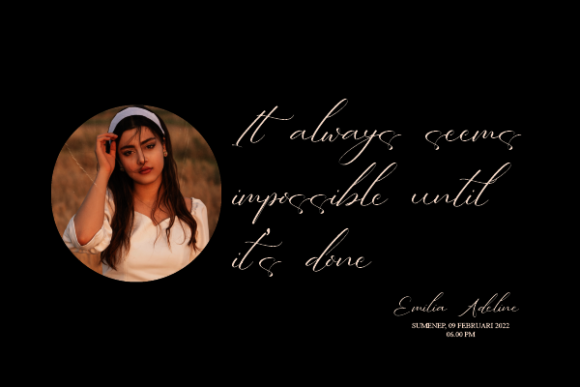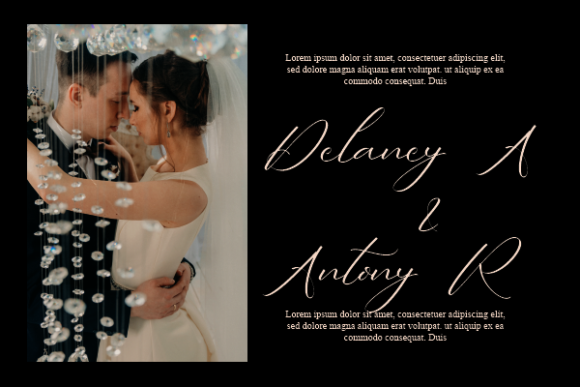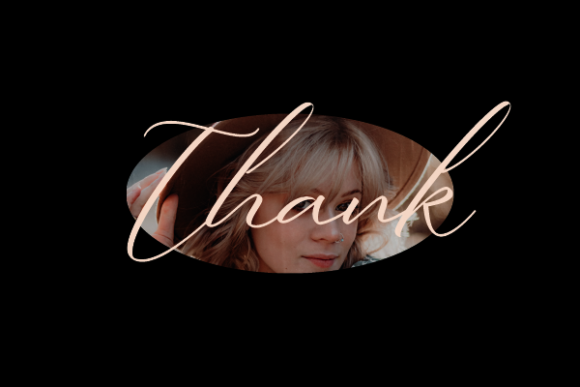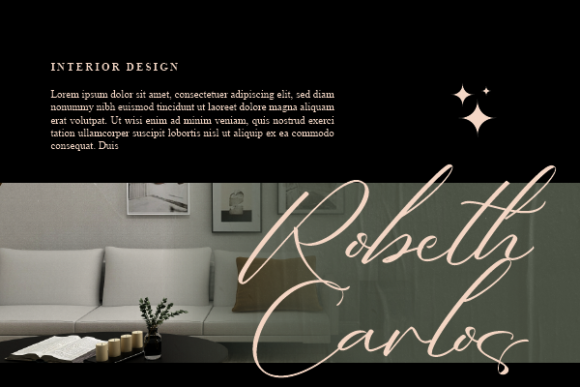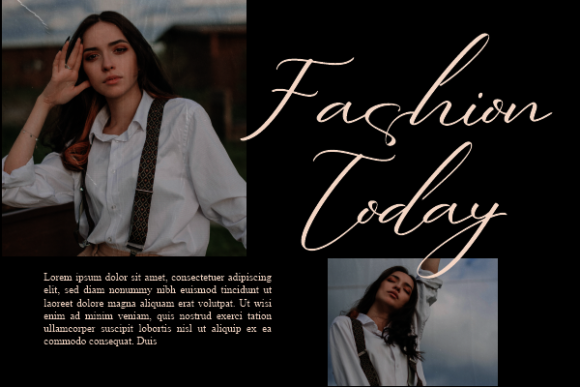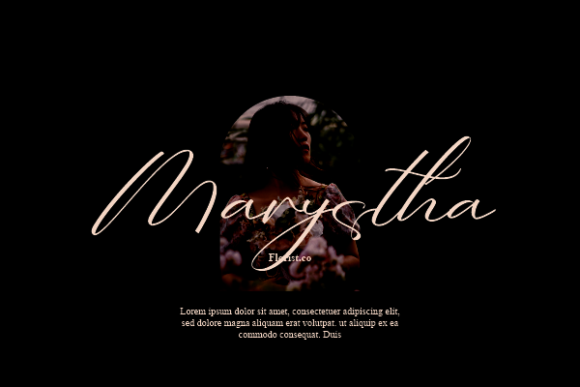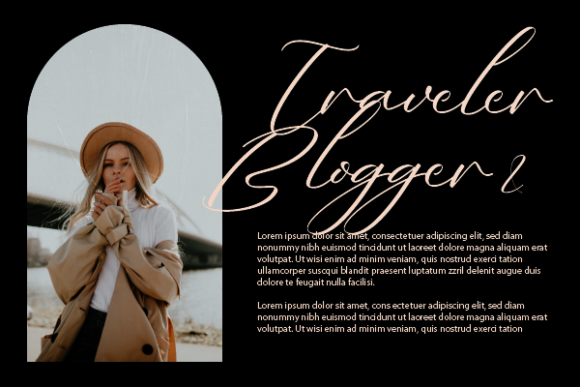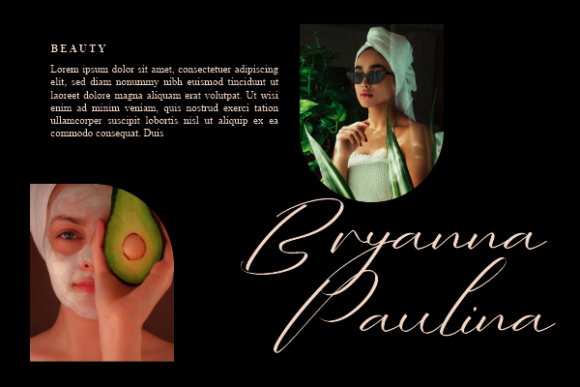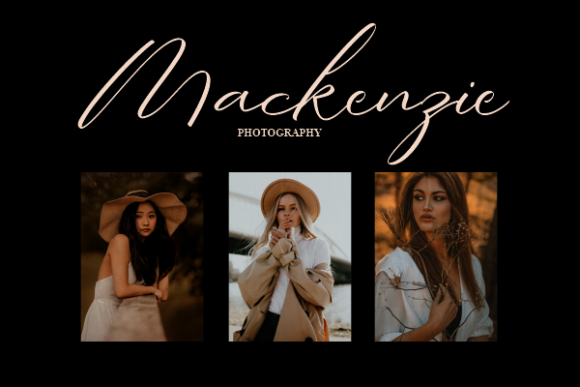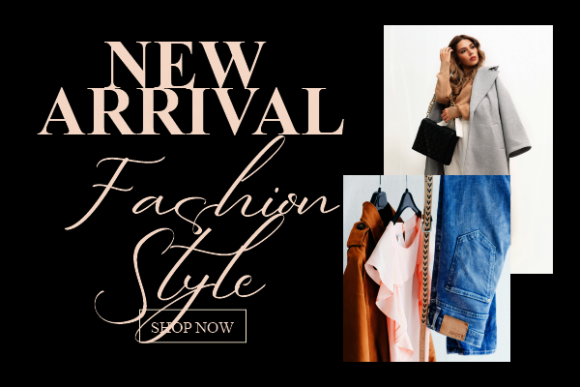
Russell Sutherland Font
About Russell Sutherland Font
Russell Sutherland is a masterpiece of handwritten elegance, meticulously crafted to earn a place as your ultimate font choice. Embracing the timeless essence of classic calligraphy, it seamlessly marries this tradition with a modern and invigorating twist. Prepare to be enamored by its charm and elevate your projects to unparalleled heights.
Every curve and line of Russell Sutherland reflects a dedication to artistic perfection. Its intricate details pay homage to the grace of calligraphy while breathing a refreshing contemporary air into its essence. This font is not just a tool; it’s a work of art that transcends the ordinary and propels your designs into the extraordinary.
As you immerse yourself in the world of Russell Sutherland, you’ll discover its ability to evoke emotions and captivate hearts. Its presence is not just felt visually, but experienced on a deeper level. The harmonious blend of classic and modern aesthetics serves as a catalyst for inspiration, igniting a fire of creativity within you.
Russell Sutherland is more than a font – it’s an experience waiting to unfold. Let it be the muse that guides your hand as you embark on design ventures. From invitations to branding, from printed materials to digital graphics, this font lends an air of sophistication that resonates with discerning audiences.
The beauty of Russell Sutherland is that it doesn’t merely fit into your projects; it elevates them. Your creations will take on a new life, infused with the soul of this exquisite font. It whispers stories, conveys emotions, and leaves an indelible mark on those who encounter your designs.
Open your heart to the allure of Russell Sutherland and witness how it transforms your creative vision into reality. Allow its calligraphic influences to dance alongside contemporary flair, breathing life into your projects in ways you never thought possible. Let this font be the cornerstone of your design journey, and watch as it propels you to achieve the highest levels of artistic achievement.